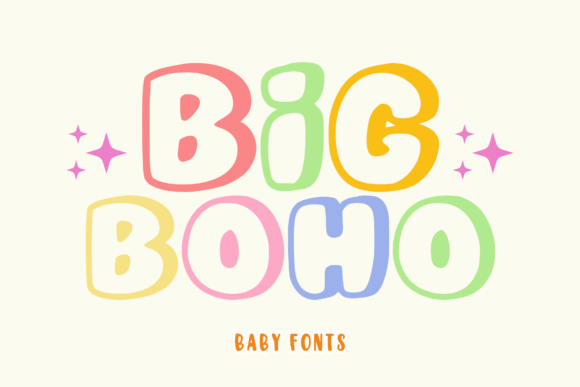
Discover the Magic of Big Boho Font
Have you ever sat at your desk, staring at a blank canvas, searching for that perfect font to bring your design to life? The struggle is real, but it’s moments like these that make us appreciate the beauty of a well-designed font. And that’s exactly where the Big Boho Font comes in – a cheerful and cute display font that’s sure to add a touch of elegance to any design.
This stunning font is perfect for a variety of cute-themed designs, from t-shirts and displays to crafts and stickers. With its lively and cheerful vibe, it’s no wonder that designers are falling in love with the Big Boho Font. Whether you’re a seasoned pro or a budding designer, this font is a valuable addition to your toolkit, offering endless possibilities for creativity and self-expression.
Big Boho Font Key Features
- Unique Characteristics: Big Boho Font features a distinctive, hand-drawn design with bold lines, eclectic flair, and a mix of vintage and bohemian elements, making it perfect for creative and artistic projects.
- Font Style: The font has a bold, sans-serif style with a touch of elegance, suitable for headings, titles, and other display text.
- Customization Options: The font includes a range of customization options, including ligatures, swashes, and alternative characters, allowing designers to add a personal touch to their projects.
Big Boho Font Review
Overall, I think Big Boho Font is a unique and eye-catching addition to any design project. ✨ The font’s bohemian vibe is perfect for creating a free-spirited and eclectic feel.
- ✨ The font’s irregular shapes and bold lines add a lot of character to any text.
- ✨ The font is highly customizable, with many options for adjusting size, color, and spacing.
However, there are some limitations to keep in mind:
- ⚠️ The font may be difficult to read in small sizes or at a distance, due to its bold and irregular lines.
- ⚠️ The font may not be suitable for formal or professional designs, due to its bohemian aesthetic.
- ⚠️ Some users may find the font too ornate or busy, which can detract from the overall design.
Overall, I think Big Boho Font is a great choice for designers looking to add a unique and eclectic touch to their projects. With its many customization options and wide compatibility, it’s a great choice for a variety of designs.
Big Boho Font is perfect for:
- Creating bohemian-inspired graphics and designs.
- Adding a touch of elegance and sophistication to your designs.
- Creating quotes, posters, and other visual content.